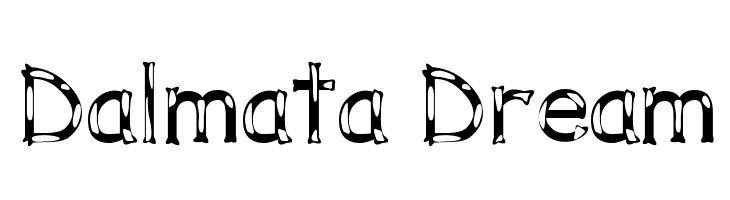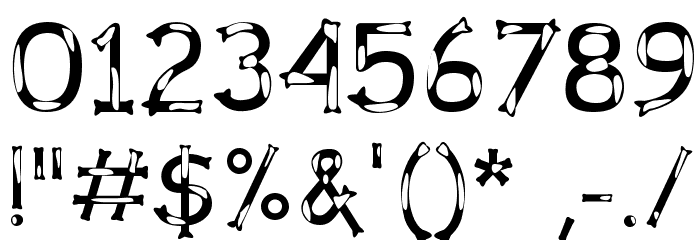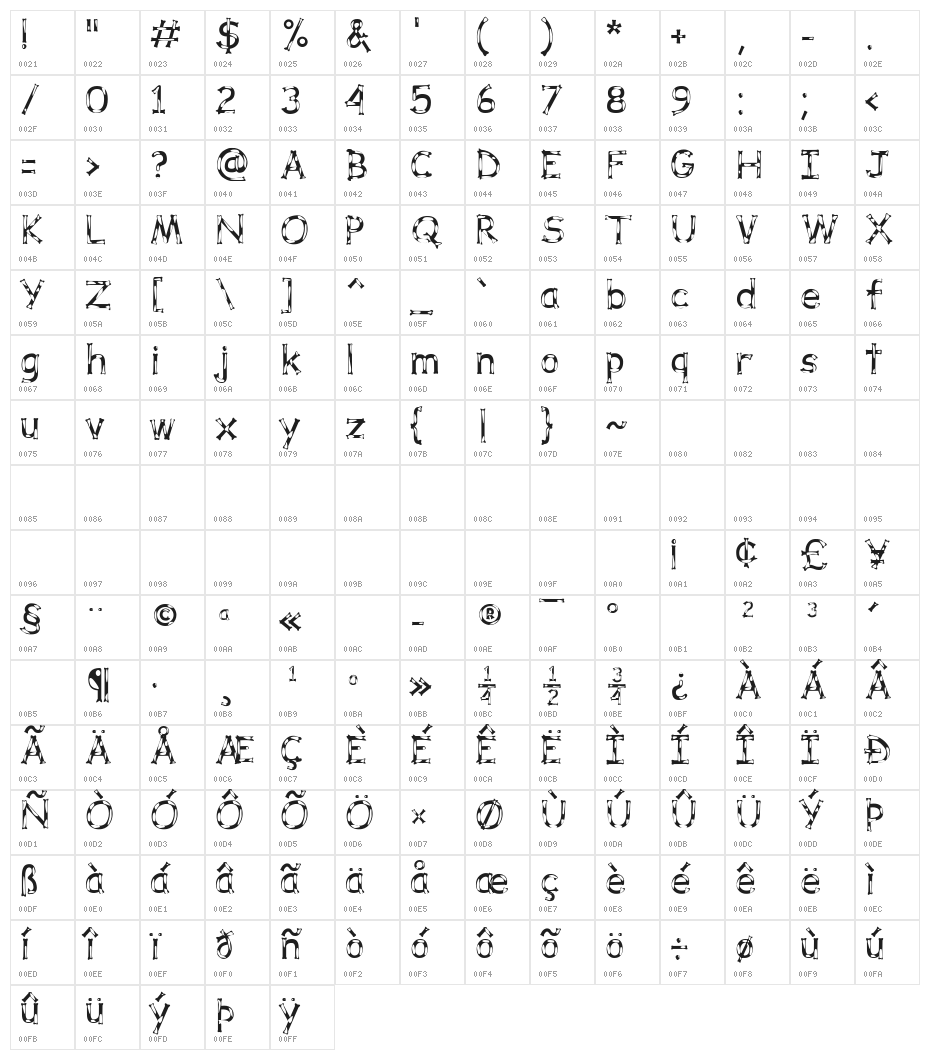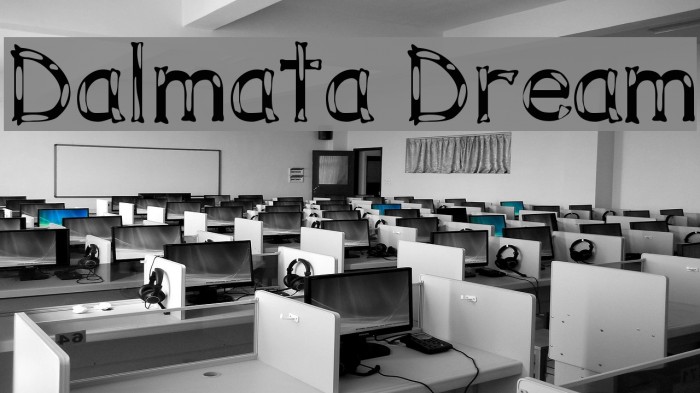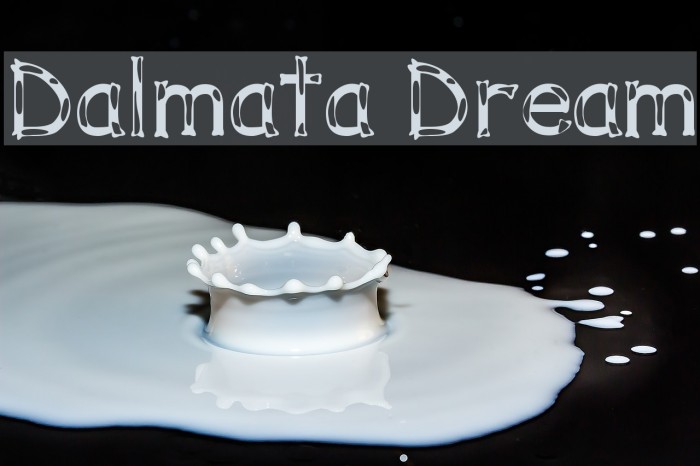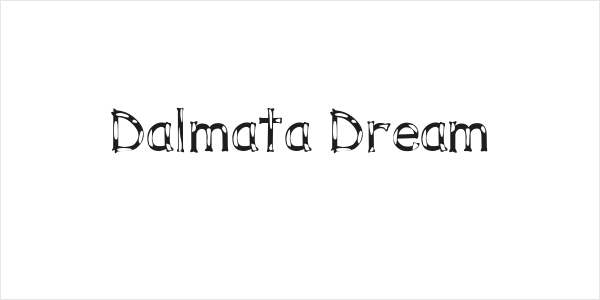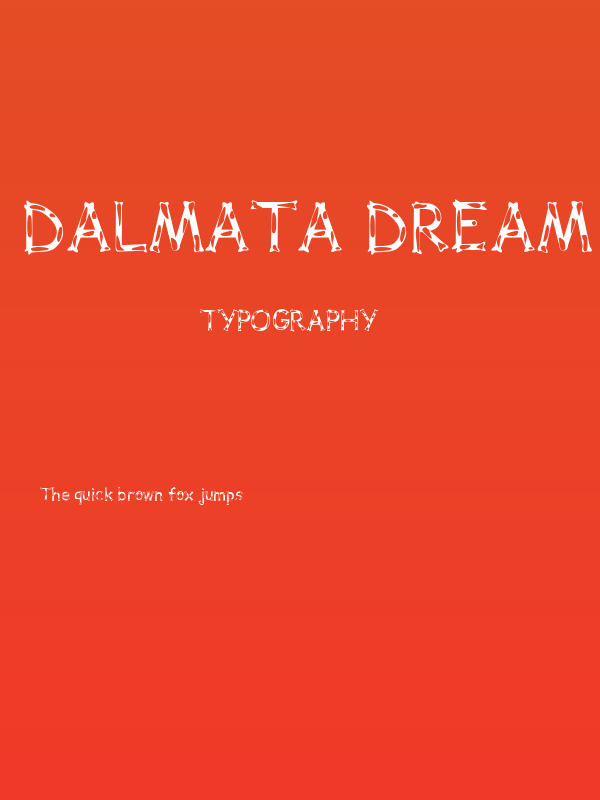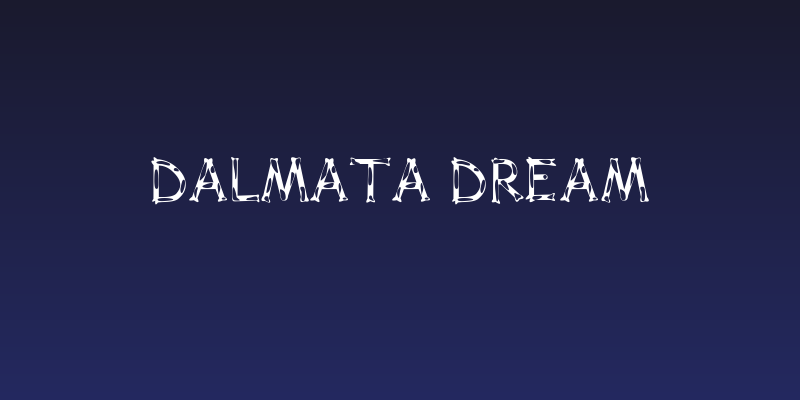
Dalmata Dream Font
Dalmata Dream Description
This font features a playful and whimsical design, characterized by its unique spotted pattern reminiscent of a Dalmatian's coat. The letters are bold and have a decorative flair, with irregular shapes and varying stroke thicknesses that add a dynamic and lively feel. The uppercase and lowercase letters maintain a consistent style, while the numbers and special characters integrate seamlessly with the overall theme. The font's distinctive appearance makes it ideal for creative and fun projects, capturing attention with its eye-catching design.